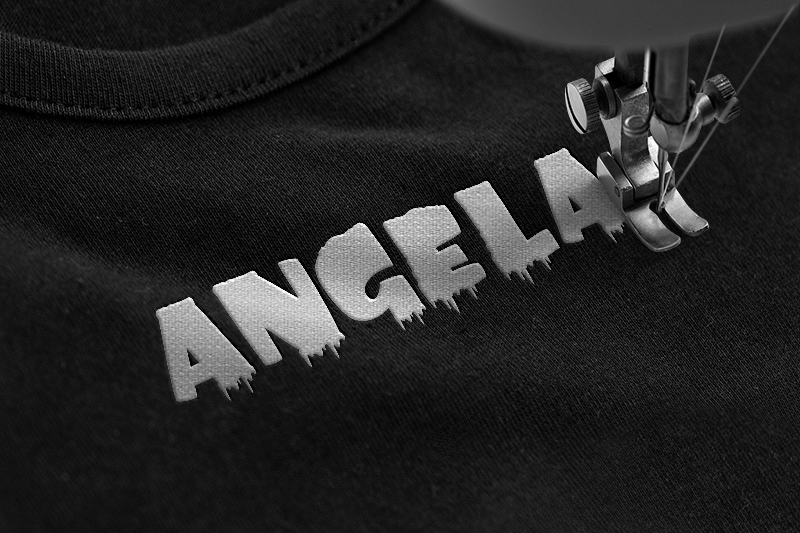
Talking about embroidery fonts will certainly be very fun. Their appearance looks very modern and unique) makes anyone who sees it will be amazed. This time, we present a new kind of Embroidery Christmas font, called Amonk Ice Embroidery Font. We made this font to add to the variety of fonts that you can choose from. You can also choose different sizes of fonts and file types to use.
Amonk ice embroidery font is created with the appearance of having a wide surface and a blunt edge. The difference between embroidered fonts in general is that there are additional ice print accents at some of the ends of the letters. This makes the almond ice capable of displaying Christmas nuances when combined with the appropriate colors and objects.
The Amonk Ice embroidery font is a legible font when applied in moderate form. It is not suitable if it is made small and writes a lot of words. Many products are compatible when using this font in them. Some of them are clothing item designs such as hats, hoodies, t-shirts, and jackets. Another use for this font is that it can be embroidered on bags and other souvenirs used at Christmas parties.